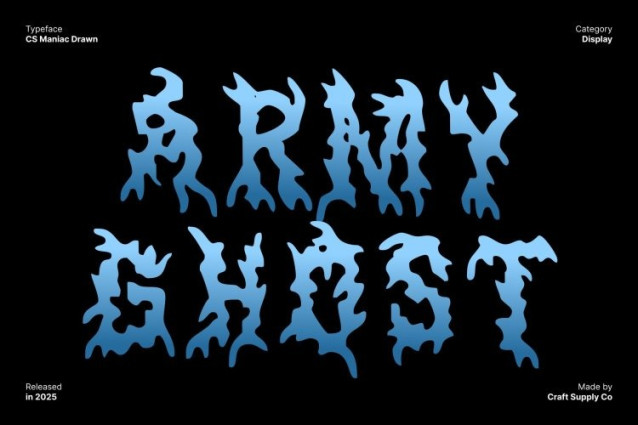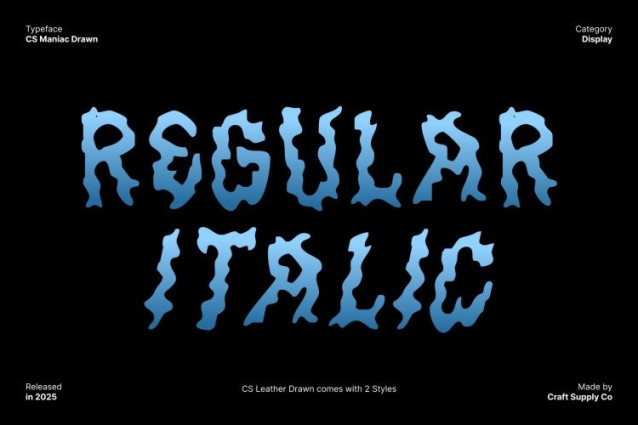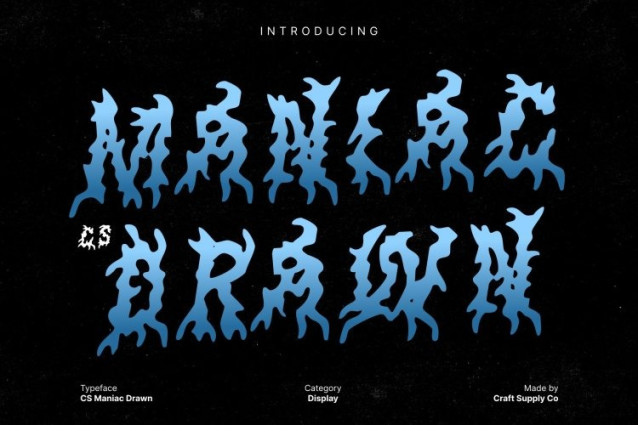
CS Maniac Drawn Font
CS Maniac Drawn Font This is a fiercely expressive black metal display font built to radiate aggression, darkness, and unrestrained energy. Its jagged spikes, chaotic strokes, and razor-sharp silhouettes echo the raw brutality of extreme music genres.
Chaotic, Spiked Geometry Inspired by Black Metal Aesthetics
The defining feature of this font lies in its dramatic spiked forms and fractured geometry. The wild structure breaks away from traditional typography, replacing refinement with raw expressive force. These irregular shapes and thorn-like extensions create a visual tension that instantly demands attention perfect for any design that needs to communicate hostility, rebellion, or primal artistic energy.
Hand-Drawn Texture for Authentic Artistic Brutality
The drawn effect enhances its chaotic construction, giving each character a gritty, handmade texture. This artistic roughness amplifies the sense of disorder, making the font feel alive, abrasive, and unapologetically dark. The textured strokes bring an organic quality that mirrors real metal band logos, turning every word into a graphic illustration.
Perfect for Band Logos, Posters, and Edgy Design Projects
This font thrives in bold display environments where atmosphere and attitude matter most. It’s ideal for band logos, album covers, horror posters, extreme-themed merchandise, alternative branding, and any project needing a sinister and high-impact typographic presence.